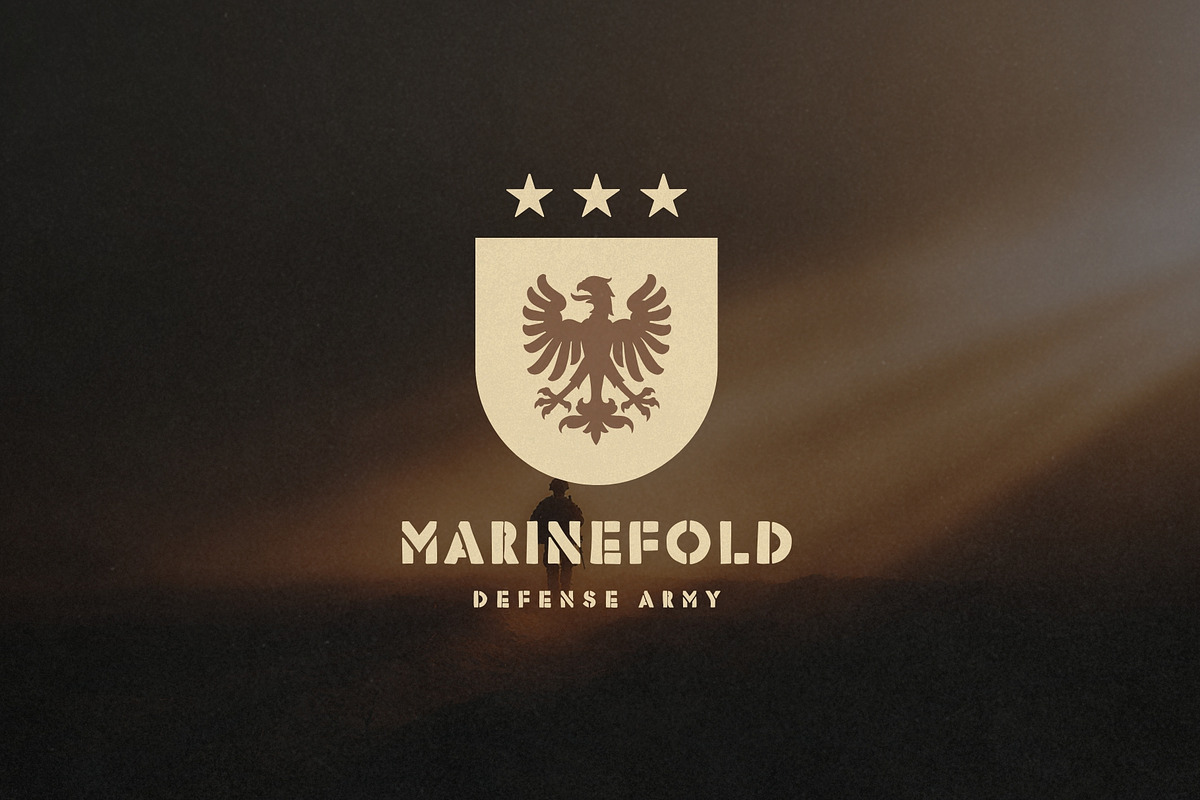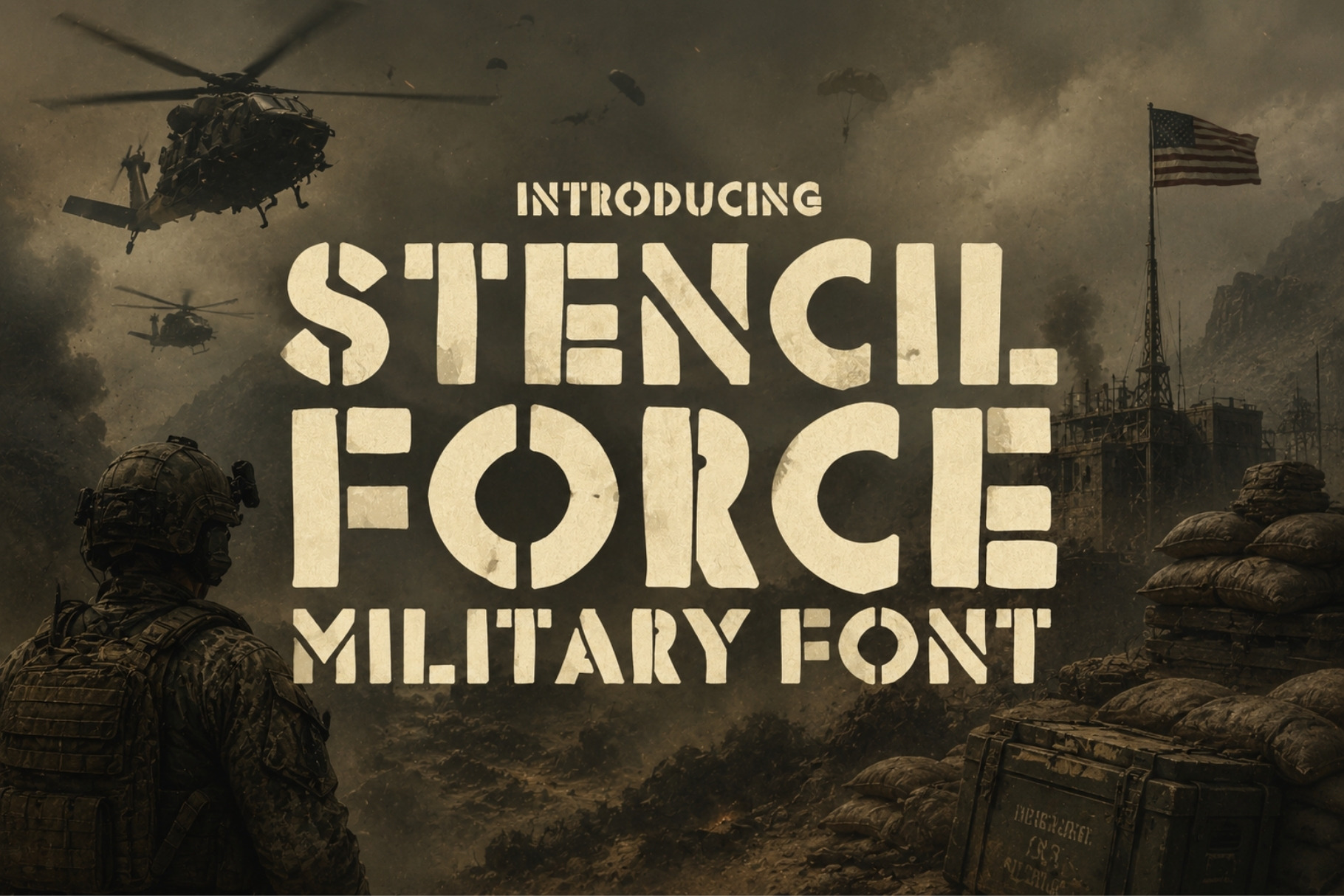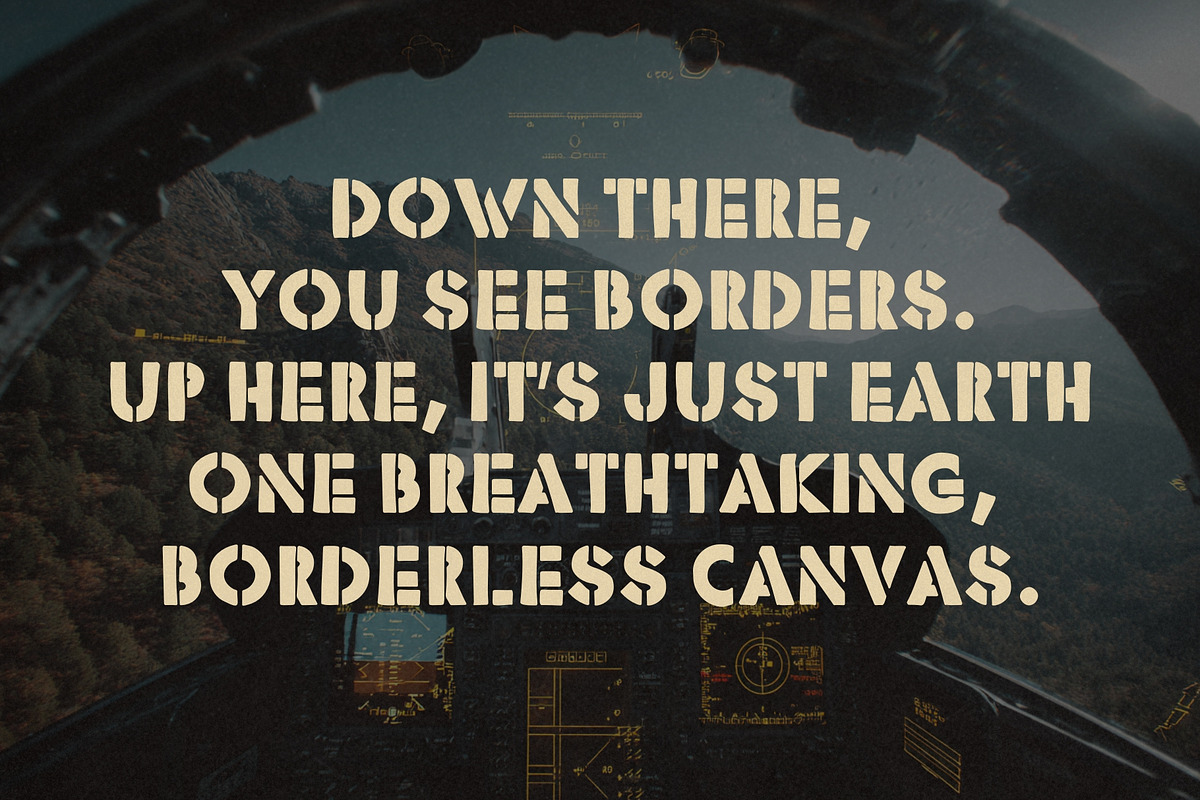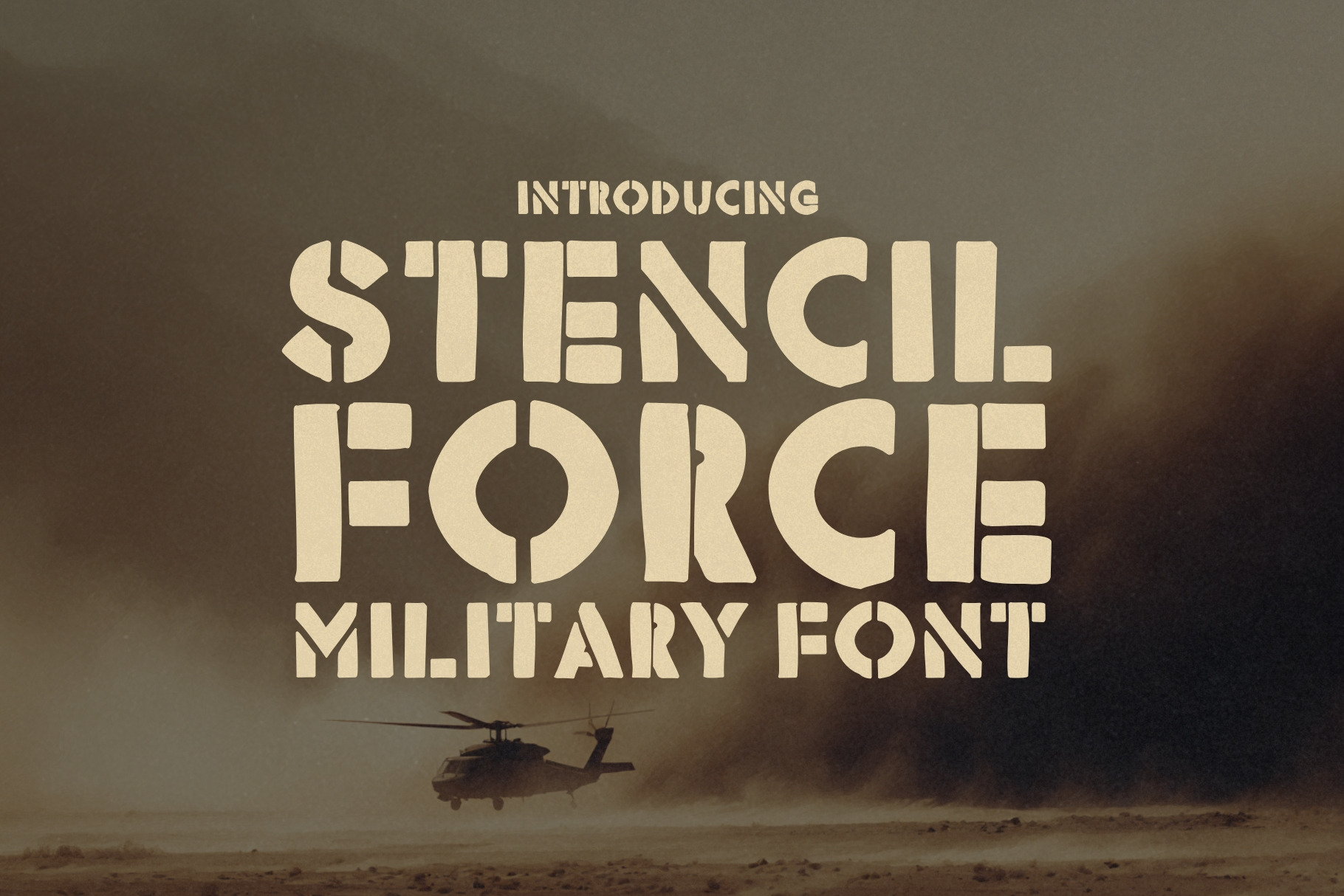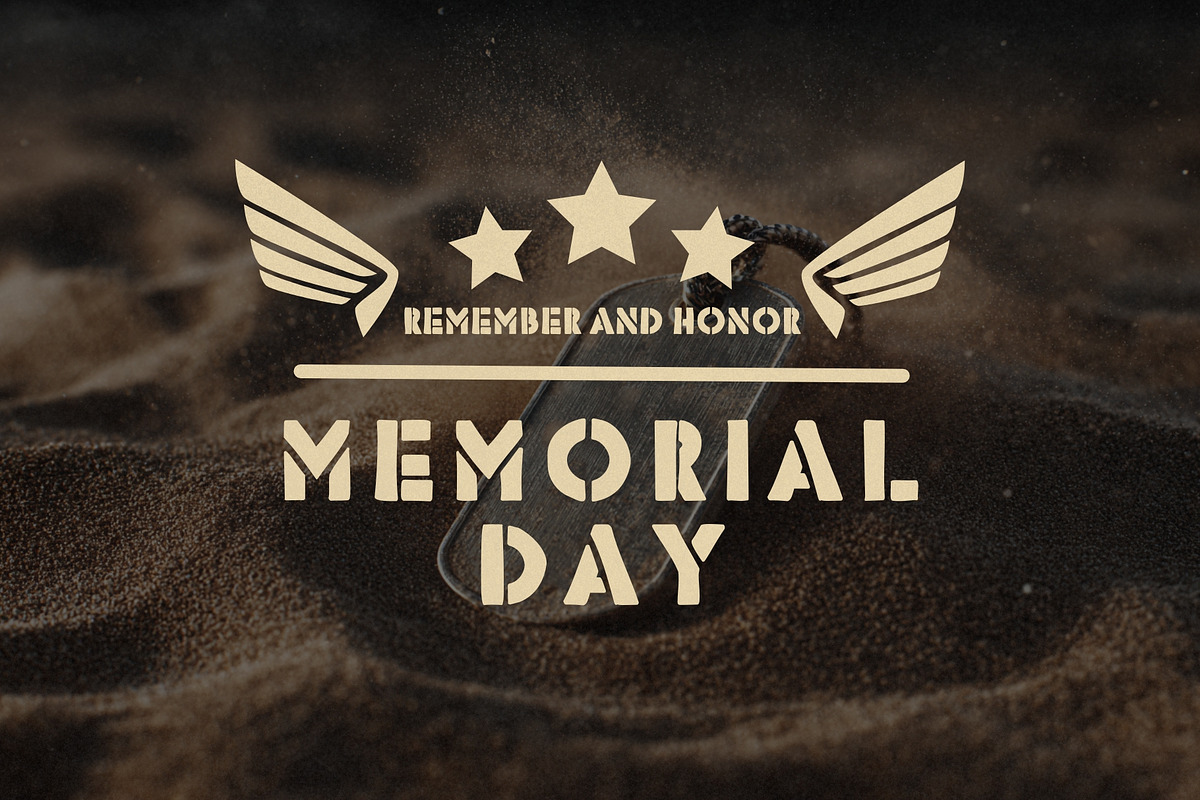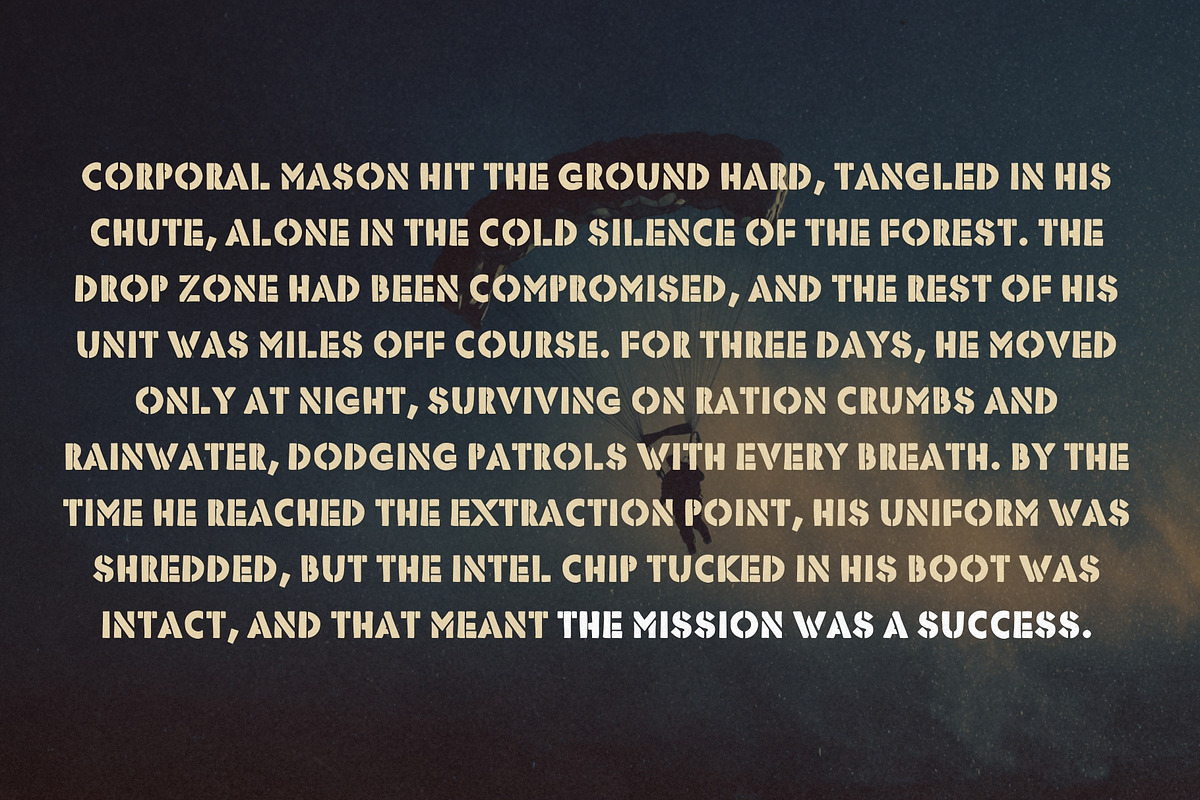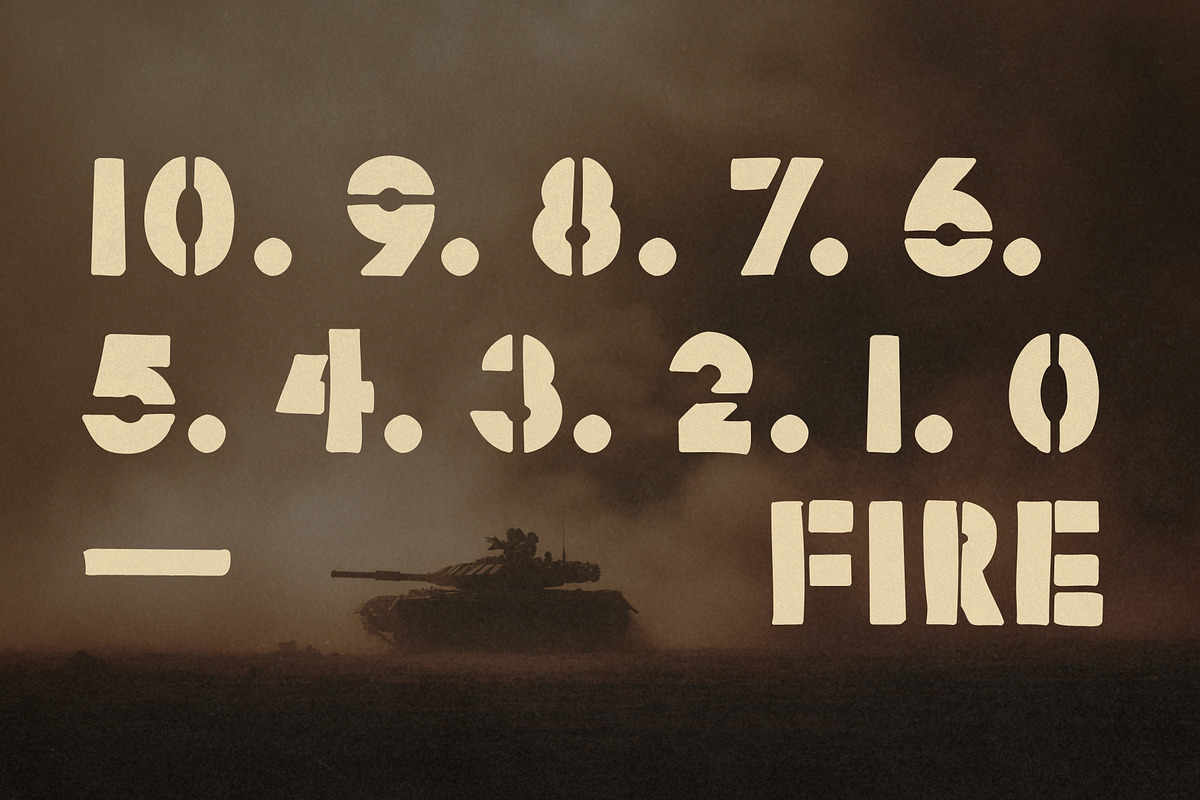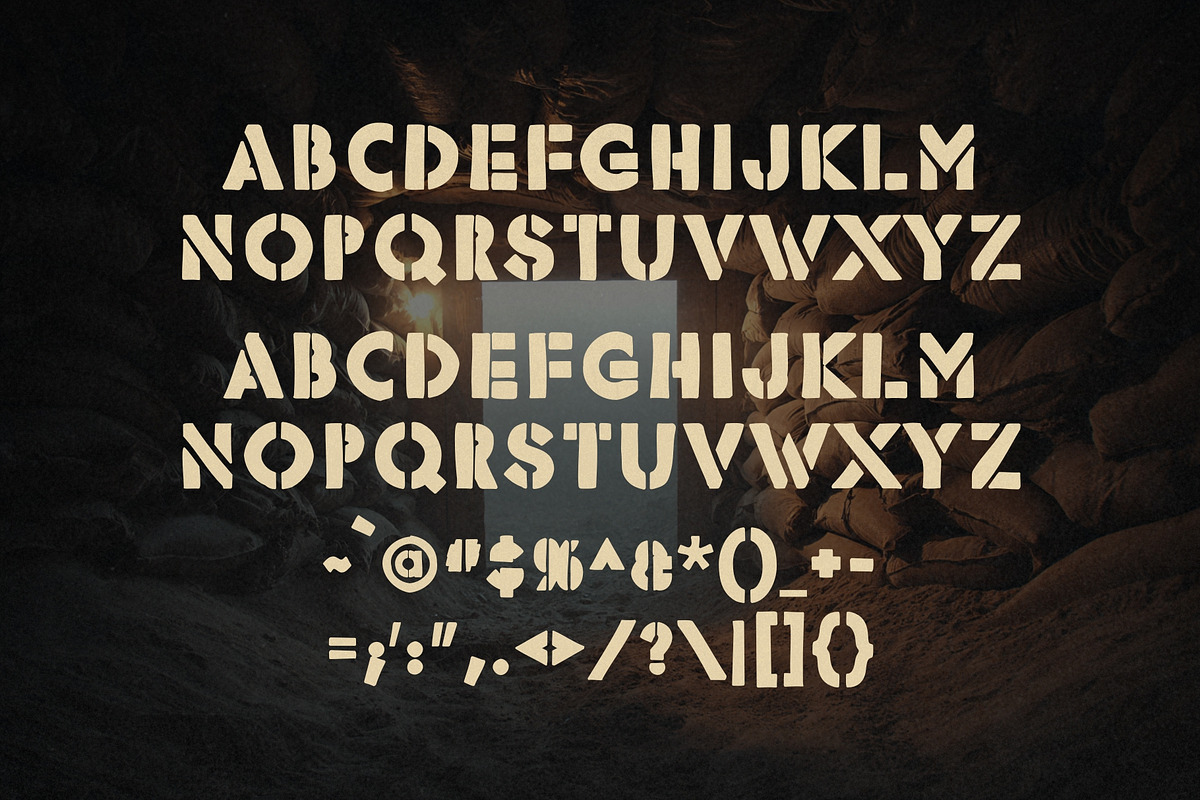
Stencil Force - Military & Army Font
Stencil Force is a rugged, battle-tested military font forged for commanding attention. Inspired by real-world military stencils used on crates, vehicles, and gear, this all-caps powerhouse delivers authentic grit with a modern edge.
Each letter is crafted with precision, featuring subtle variations between uppercase and smaller caps that mimic the imperfect beauty of hand-cut stencils, perfect for adding realism and character to your designs.
Whether you're designing for military-themed posters, tactical video games, historic reenactment branding, or army apparel, Stencil Force brings the authority, legacy, and strength of battlefield typography to your fingertips. Lock, load, and deploy it wherever bold impact and authenticity are mission critical.